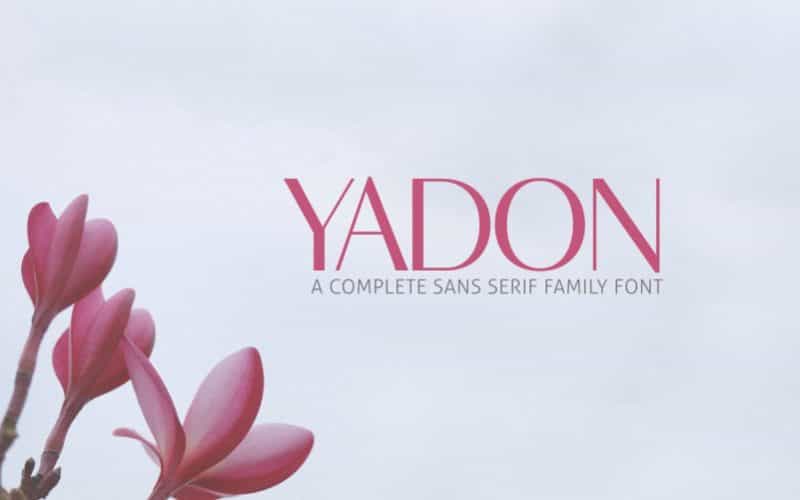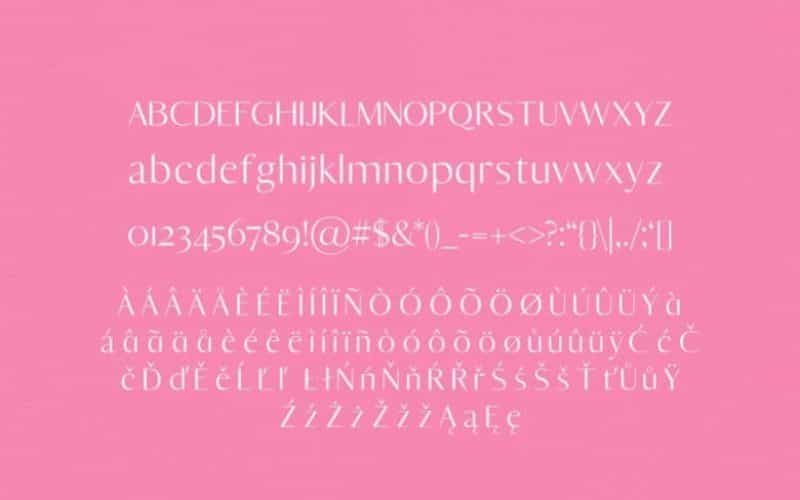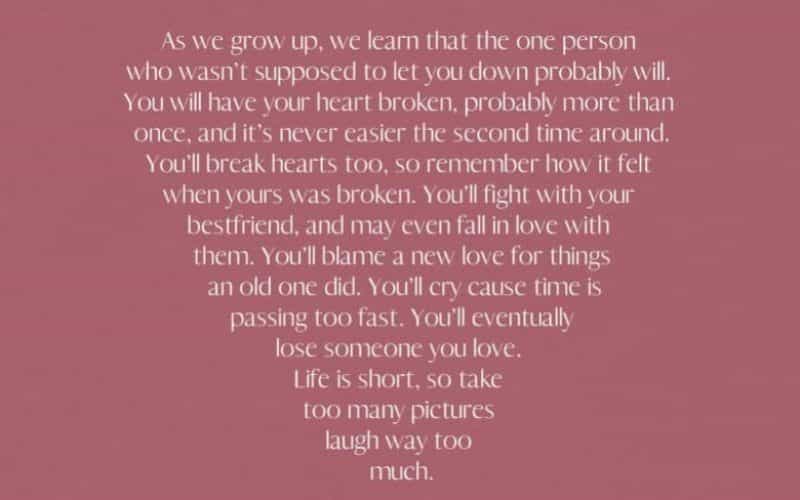
Yadon Sans Serif Font is a beautiful and special sans serif font set of 9 weights and it is perfect for creative displays and it has an art-deco touch, prêt(e) à partir.